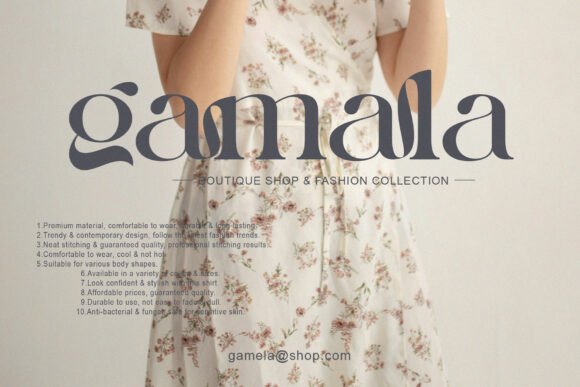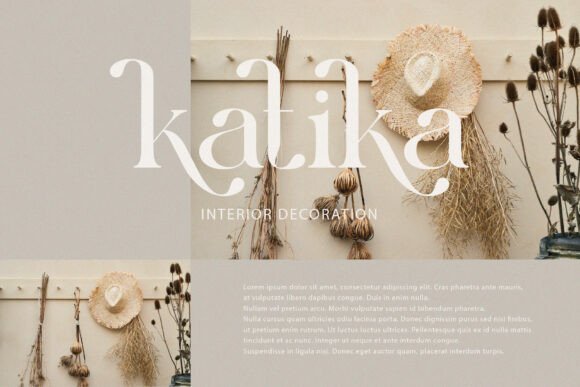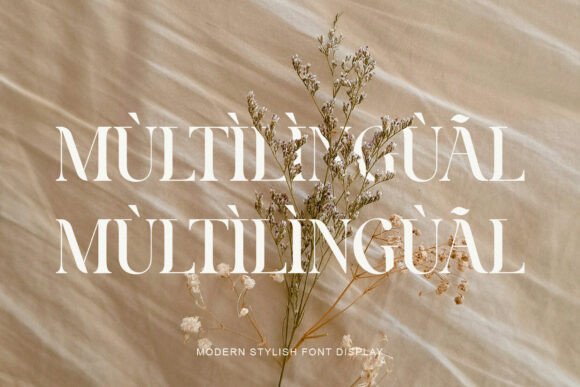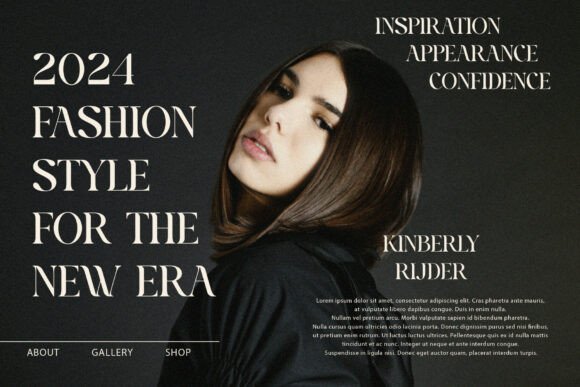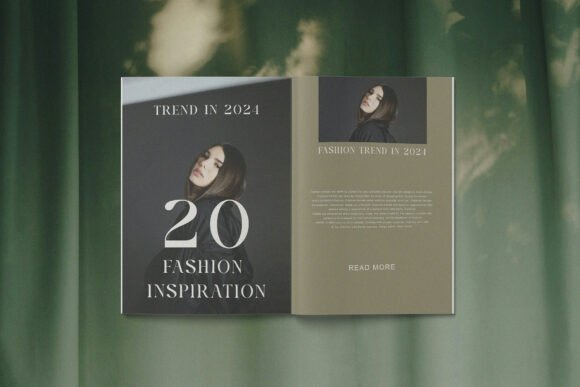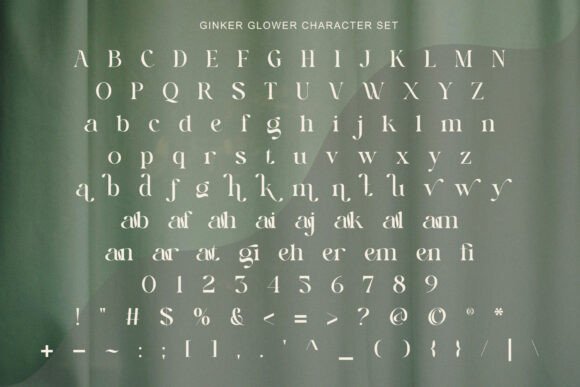
Introducing Ginker Glower: The Elegant, Beautiful, and Modern Serif Font
In the world of typography, a new star has emerged, and its name is Ginker Glower. This stunning serif font is making waves in the design community with its modern and minimalist aesthetic, bringing a touch of luxury, class, and cleanliness to any project it touches. Whether you’re working on a website, crafting a modern logo, developing a brand identity, creating social media quotes, designing wedding stationery, or laying out a magazine, Ginker Glower is the perfect companion to elevate your work to new heights.
The Essence of Ginker Glower
Ginker Glower embodies the perfect blend of modernity and tradition. Its sleek lines, balanced proportions, and elegant serifs make it a versatile font suitable for a wide range of applications. The font’s design is characterized by its clean and uncluttered appearance, making it highly legible across various mediums, from digital screens to print materials.
Why Choose Ginker Glower?
There are several reasons why Ginker Glower stands out in the crowded world of fonts:
- Versatility: Ginker Glower is not limited to a specific genre. Its adaptability makes it ideal for use in logos, brands, wedding invitations, business cards, greeting cards, posters, magazines, social media posts, agenda prints, and websites.
- Elegance: The font exudes elegance, adding a sophisticated touch to any project. Its classy appearance is perfect for luxury brands, high-end products, and premium services.
- Legibility: Despite its elegant and minimalist design, Ginker Glower does not compromise on readability. It ensures that your message is conveyed clearly and effectively, making it suitable for both headings and body text.
- Modern Appeal: In today’s fast-paced digital landscape, a modern look is crucial. Ginker Glower’s contemporary design ensures that your projects stand out with a fresh and current feel.
Applications of Ginker Glower
The versatility of Ginker Glower makes it a valuable asset for designers and crafters across various industries. Here are some of the key areas where Ginker Glower can make a significant impact:
- Logos and Branding: Create memorable and impactful logos that convey your brand’s elegance and sophistication.
- Wedding Stationery: Add a touch of luxury and romance to wedding invitations, thank you cards, and other wedding-related materials.
- Business and Greeting Cards: Stand out with professional and stylish business cards, greeting cards, and postcards.
- Magazines and Editorials: Elevate your publications with a font that offers both style and substance.
- Social Media and Websites: Enhance your online presence with a modern and elegant typography that captures your audience’s attention.
Tips for Using Ginker Glower
To maximize the potential of Ginker Glower, consider the following tips:
- Pair with Complementary Fonts: While Ginker Glower is stunning on its own, pairing it with complementary fonts can add depth and interest to your designs.
- Experiment with Weights: Ginker Glower comes in various weights. Experimenting with different weights can help you achieve the perfect balance of elegance and readability.
- Consider Color Schemes: The right color scheme can enhance the elegance of Ginker Glower. Opt for muted, sophisticated colors that complement the font’s luxurious feel.
| Author | Muflieart |
Ginker Glower is more than just a font; it’s a design statement. Its elegant, beautiful, and modern serif design makes it an invaluable tool for designers and crafters looking to add a touch of luxury and sophistication to their projects. With its versatility, legibility, and modern appeal, Ginker Glower is poised to become a favorite in the design community. Whether you’re working on a high-end brand identity, a stylish website, or a beautiful wedding invitation, Ginker Glower is the perfect choice to elevate your designs to new heights of elegance and style.